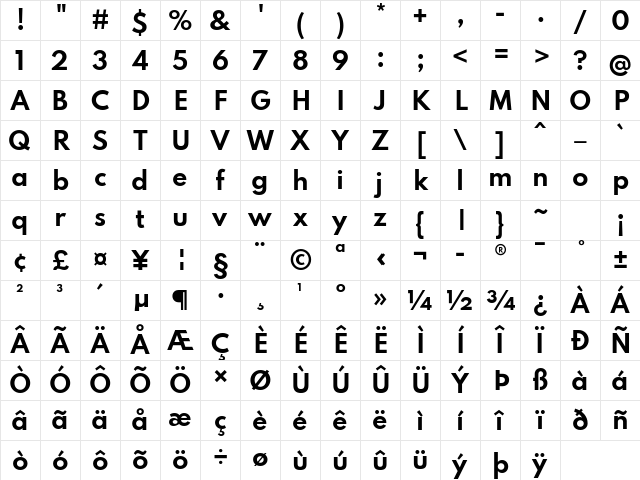
Complete Spartan Bold glyph index. Displaying only characters natively supported by Spartan Bold font.
Spartan is a composed and adaptable typeface that performs quietly and consistently across a wide range of design contexts. Its bold stroke weight gives it real presence on the page.